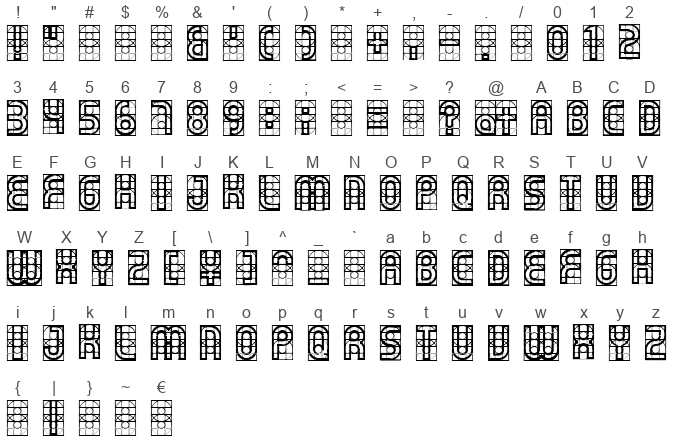
As of my last update in early 2023, Gear by BRIDGEco represents a distinctive font carefully designed to encapsulate a blend of mechanical robustness and sleek, modern aesthetics. Gear stands out for its ability to evoke the precision and engineered strength found in mechanical gears, which serves as its inspiration. This font is meticulously crafted to ensure that each character not only resonates with the theme of machinery and technology but also maintains high readability across various platforms and uses.
The structure of the Gear typeface is characterized by a balanced amalgamation of straight lines and geometric precision, embodying the essence of industrial design. Its characters possess a clean and sturdy appearance, with subtle nuances that mimic the interlocking nature of gears, thus providing a visual and conceptual link to its name. This strategic design choice enables Gear to convey a sense of innovation and progress, making it especially suitable for projects associated with technology, engineering, automotive industries, and futuristic concepts.
BRIDGEco has adeptly incorporated versatility within Gear, offering a range of weights and styles that allow designers to adapt the font to a multitude of applications. Whether it’s for bold headlines, attention-grabbing logos, or informative text blocks, Gear maintains its distinctive character and legibility. The font’s modernistic flair coupled with its engineering-inspired foundations renders it an excellent choice for projects that aim to stand out through a combination of style and substance.
In summary, Gear by BRIDGEco is not just a font but an embodiment of the intersection between technology and design. Its carefully crafted characters and unique concept make it a testament to the creativity and innovation that fonts can bring to visual communication. Whether in digital or print form, Gear promises to add a dynamic and contemporary edge to any project it graces.
Gear